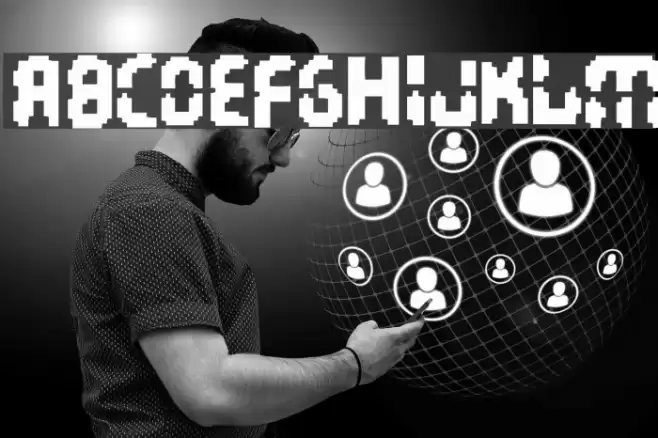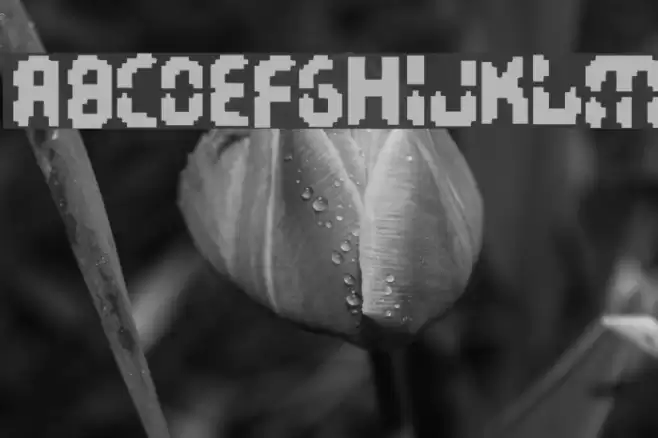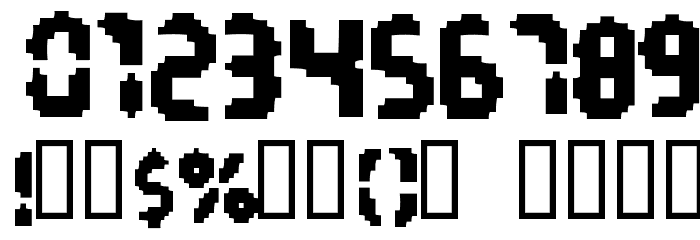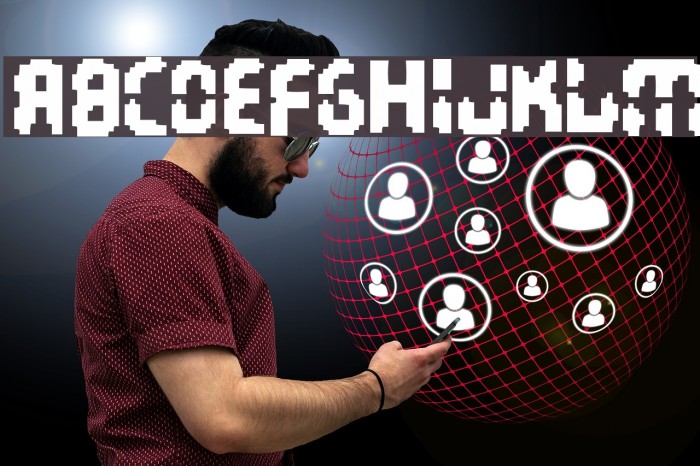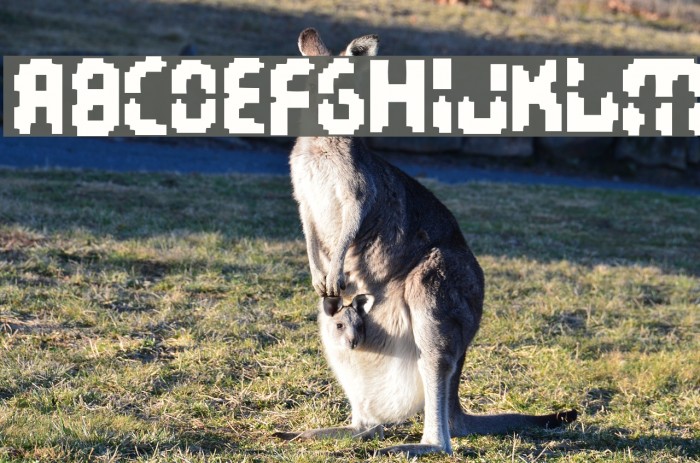
Interstellar Harddrive Font
Interstellar Harddrive Description
This font features a bold, pixelated design reminiscent of early digital displays and retro video games. Each character is constructed with a blocky, geometric style, giving it a distinctly futuristic and technological appearance. The uppercase and lowercase letters maintain a consistent height, contributing to a uniform and cohesive look. The numerals and special characters follow the same pixelated theme, ensuring visual harmony across all elements. The font's unique style makes it stand out, ideal for projects that require a digital or tech-inspired aesthetic.
A bold, pixelated font with a retro digital aesthetic from Capitals fonts.
- Proposed Projects: Ideal for video game design, tech-themed posters, digital art projects, and retro-inspired branding.
- Overall Style: Retro, Futuristic